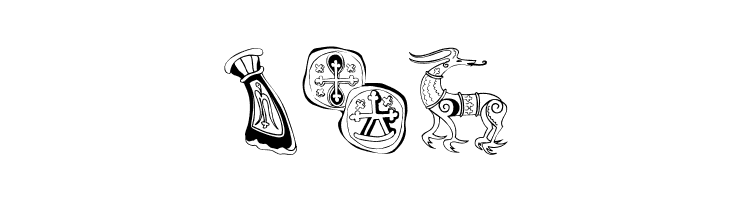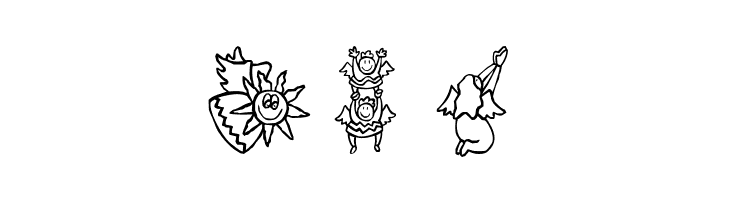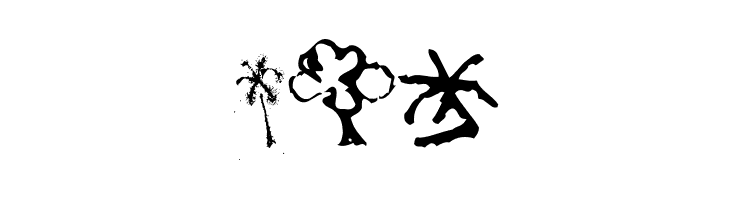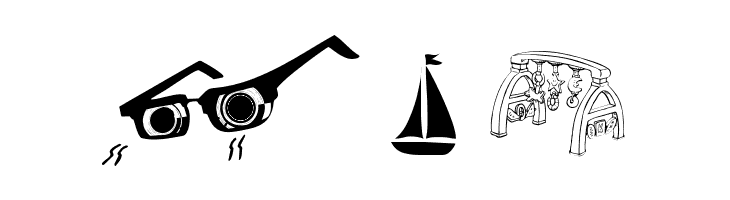
Ornate, Viking-themed illustrative font with unique character designs.
An anatomical dingbat font with detailed human body illustrations.
Whimsical pirate-themed illustrative font with cartoon scenes for each character.
A decorative, hand-drawn dingbat font of birds and leaves.
A whimsical collection of cartoon-like illustrations with angelic themes.
Whimsical, hand-drawn tree illustrations replace traditional letterforms.
A playful, illustrative display font with shield-shaped, cartoon-like glyphs.
Finance-themed dingbat font with hand-drawn illustrations.
A decorative font where each character is a detailed toy illustration.